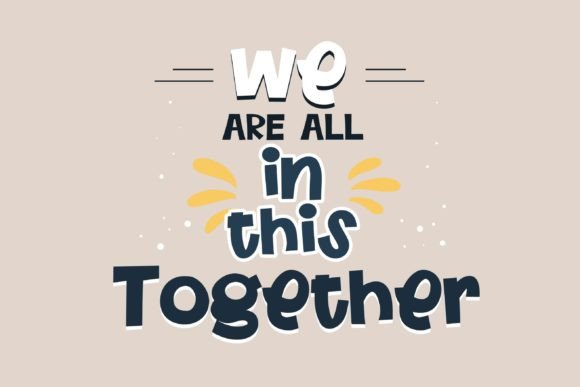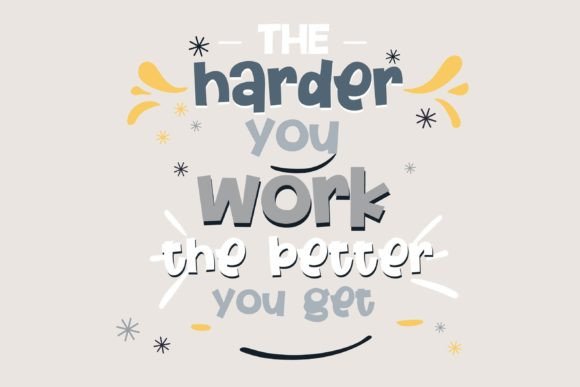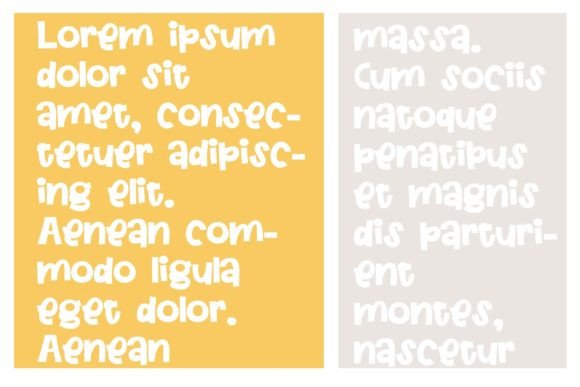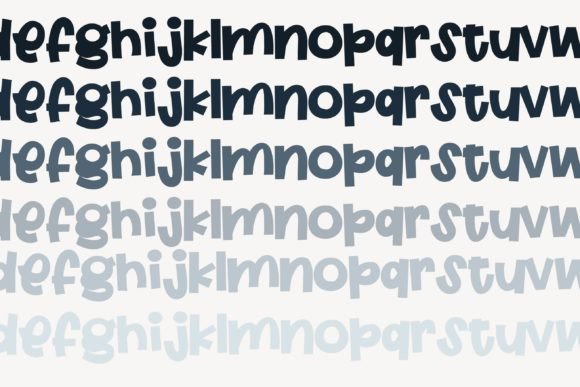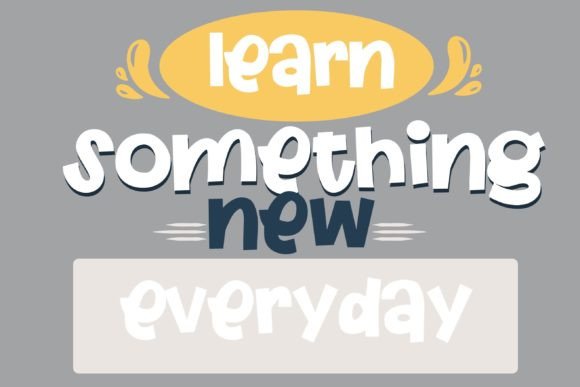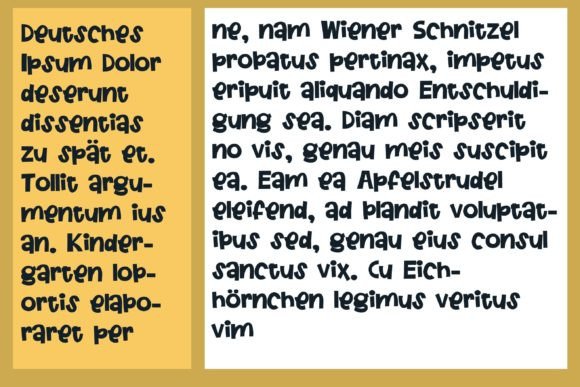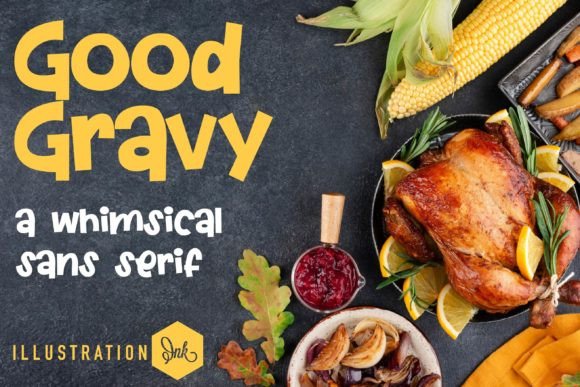
Introducing Good Gravy Font: The Perfect Addition to Your Design Arsenal
Are you tired of using the same old fonts in your designs? Look no further than Good Gravy Font, a simple yet fun display font that’s sure to add a touch of personality to your work. With its friendly and whimsical vibe, Good Gravy is perfect for titles, displays, posters, and more.
The Story Behind Good Gravy Font
Good Gravy Font is a carefully crafted typeface designed to bring a sense of playfulness and approachability to your designs. Its unique character set and carefully considered letterforms make it an excellent choice for designers and crafters looking to add a bit of whimsy to their work.
What Makes Good Gravy Font So Special?
So, what sets Good Gravy Font apart from other display fonts on the market? Here are just a few of its standout features:
- Simple yet effective design: Good Gravy Font has a clean and straightforward design that’s easy to read and understand, making it perfect for use in a variety of contexts.
- Fun and playful personality: This font has a friendly and approachable vibe that’s sure to add a touch of personality to your designs.
- Whimsical flair: Good Gravy Font has a touch of whimsy that’s perfect for designers and crafters looking to add a bit of flair to their work.
- Versatile: Whether you’re designing a title, display, poster, or something else entirely, Good Gravy Font is the perfect choice.
How to Use Good Gravy Font in Your Designs
Good Gravy Font is incredibly versatile, making it suitable for use in a wide range of design contexts. Here are just a few ideas to get you started:
- Titles and headings: Use Good Gravy Font to add a touch of personality to your titles and headings.
- Posters and flyers: This font is perfect for use in posters and flyers, where its playful personality can really shine.
- Social media graphics: Add a bit of whimsy to your social media graphics with Good Gravy Font.
- Branding and packaging: Use Good Gravy Font to add a touch of personality to your branding and packaging.
Why Designers and Crafters Love Good Gravy Font
Good Gravy Font has quickly become a favorite among designers and crafters, and it’s easy to see why. Here are just a few reasons why:
- Easy to use: Good Gravy Font is incredibly easy to use, even for those with limited design experience.
- High-quality design: This font has been carefully crafted to ensure that it looks great in any context.
- Unique personality: Good Gravy Font has a unique personality that’s sure to set your designs apart from the crowd.
- Constantly updated: The team behind Good Gravy Font is committed to continually updating and improving the font to ensure that it meets the needs of designers and crafters.
In conclusion, Good Gravy Font is a simple yet fun display font that’s perfect for designers and crafters looking to add a touch of personality to their work. With its friendly and whimsical vibe, versatile design, and high-quality craftsmanship, Good Gravy Font is sure to become a favorite in your design arsenal.